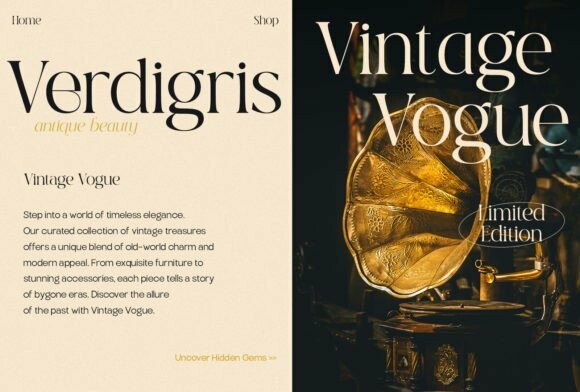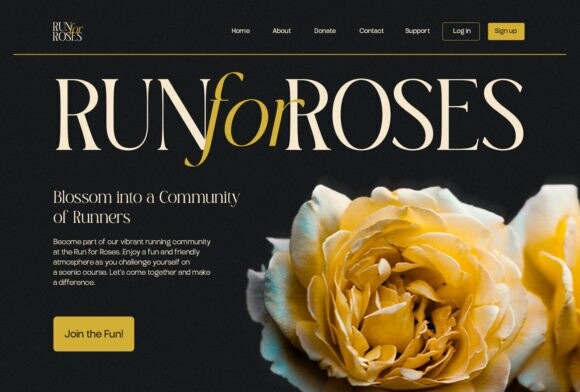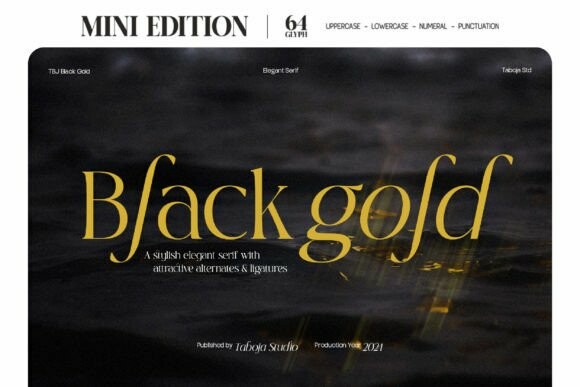
Black Gold Mini Edition Font
Designer: Taboja Studio
Black Gold Mini Edition Font, a versatile serif font family that exudes elegance and sophistication. Perfectly crafted for modern typography needs, Black Gold is ideal for branding, editorial design, and more.